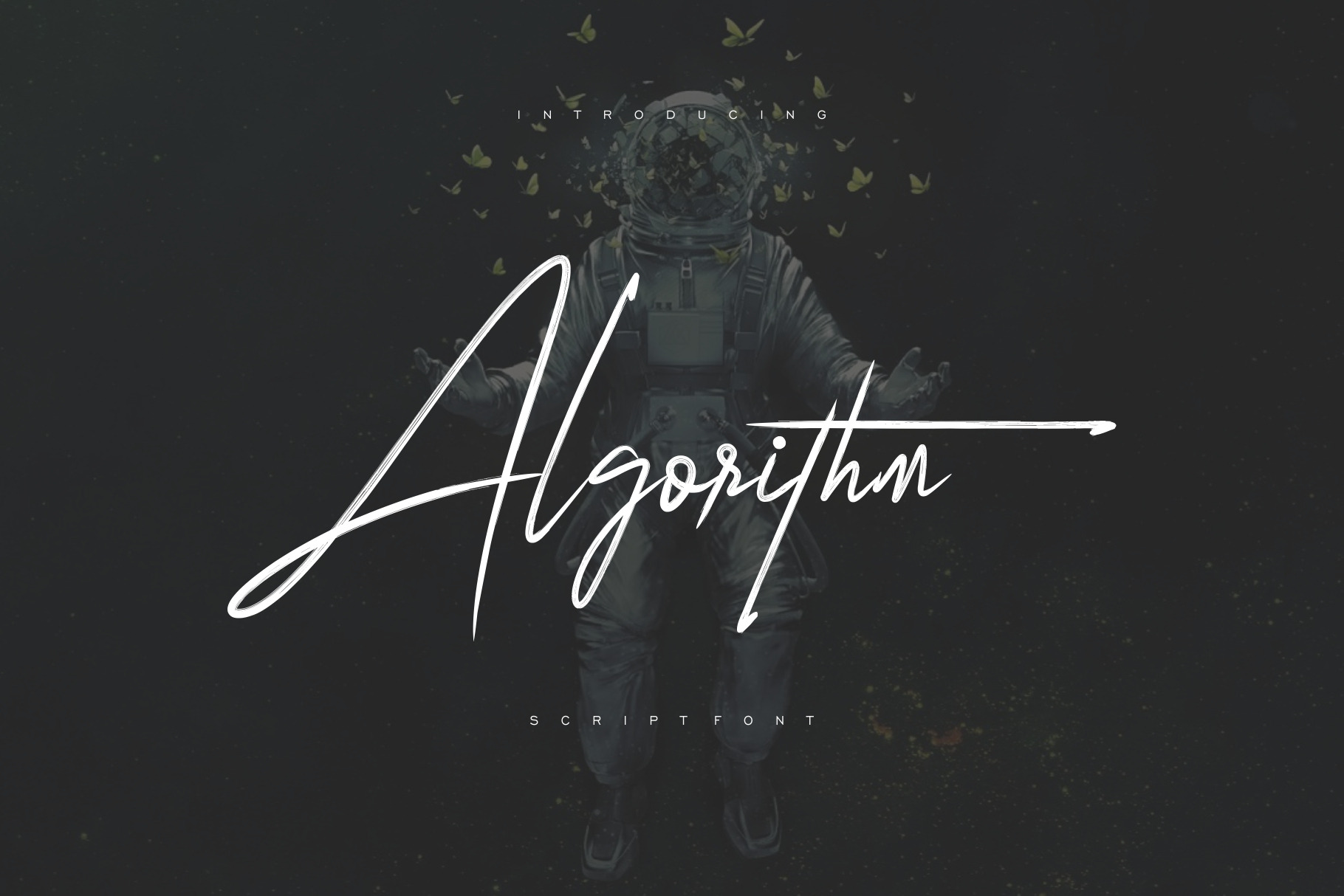
Algorithm Brush Font
Give your designs an authentic handcrafted feel. “Algorithm Brush Font” is perfectly suited to stationery, busuness card, logos and much more